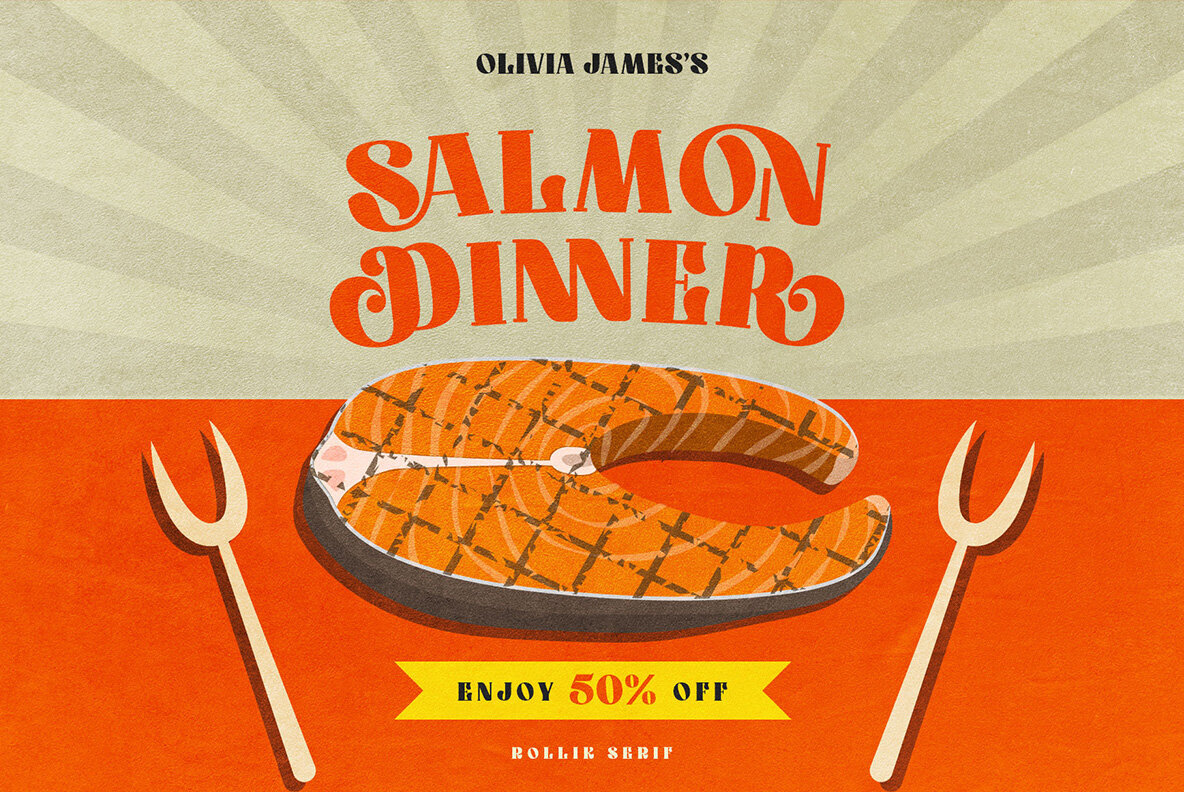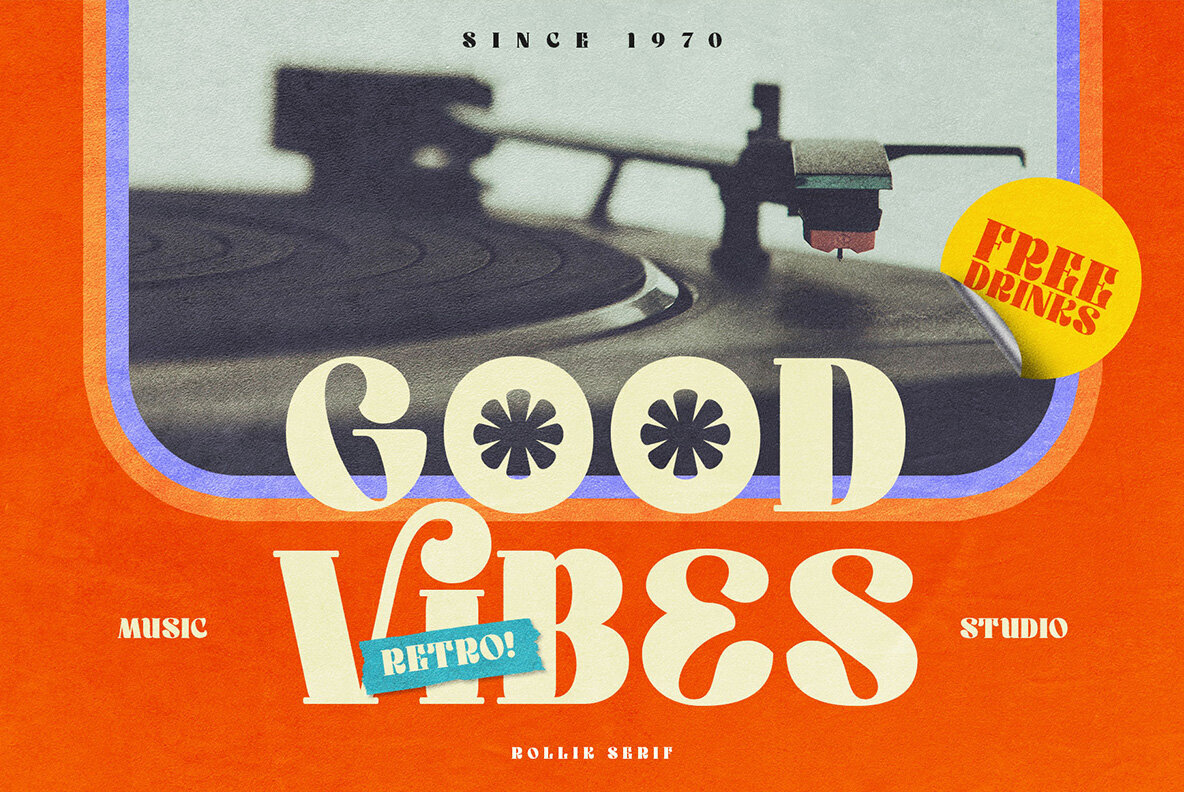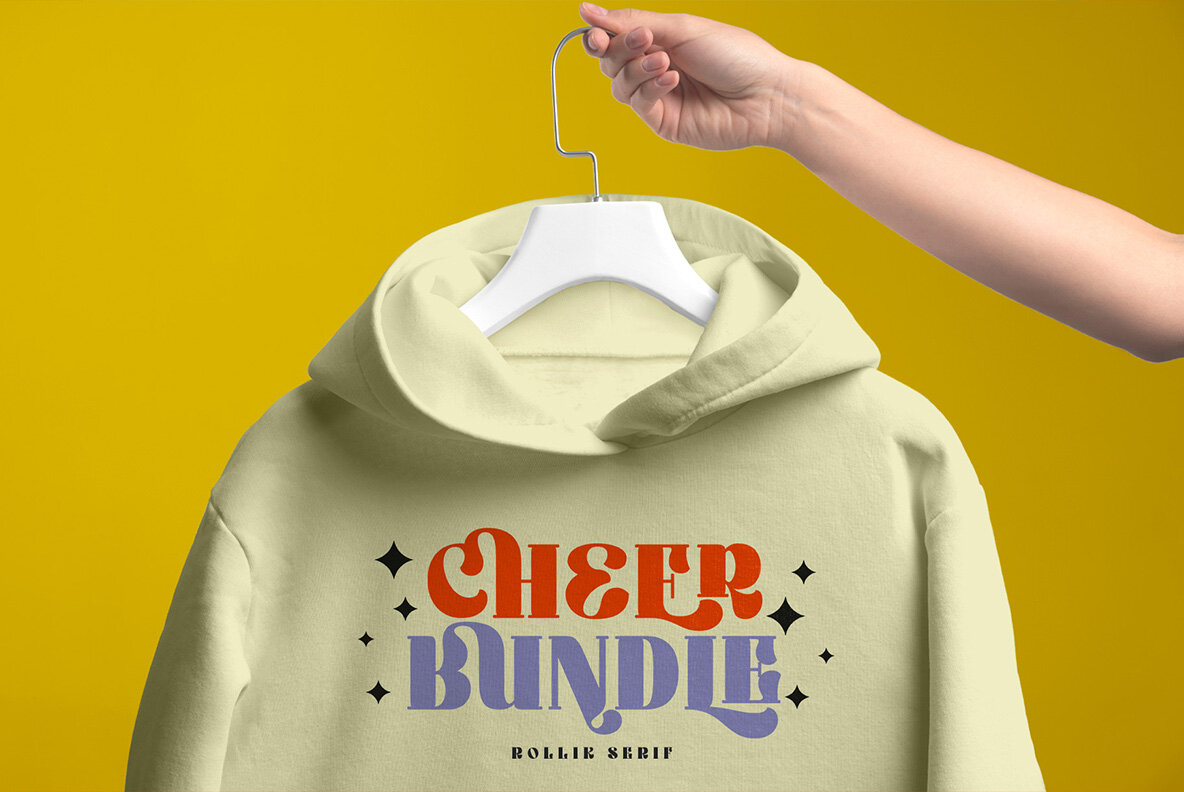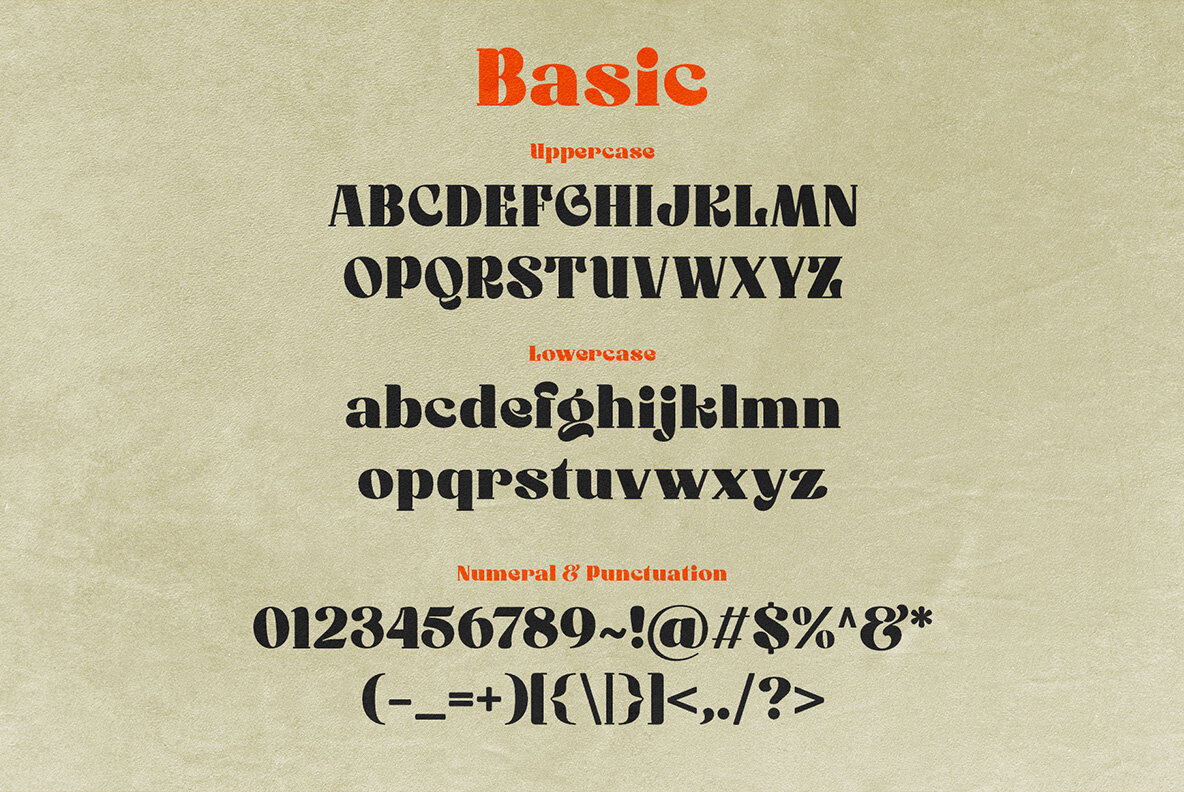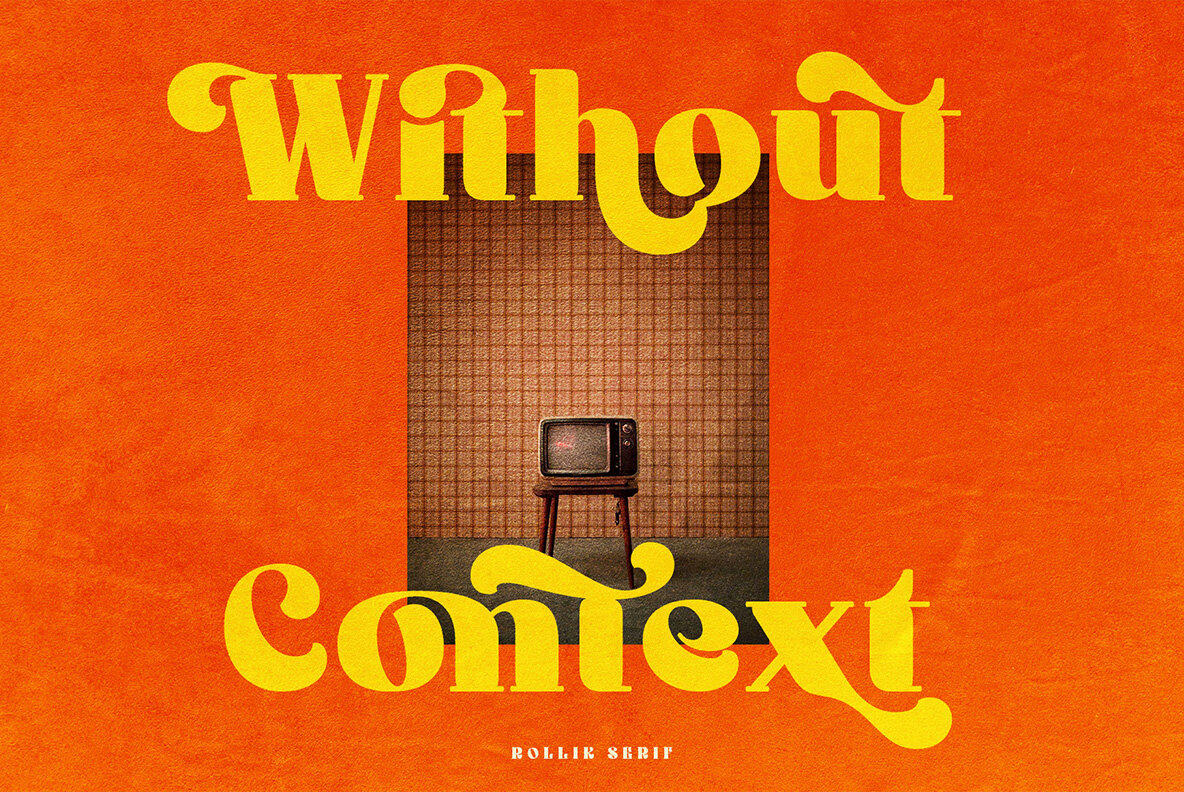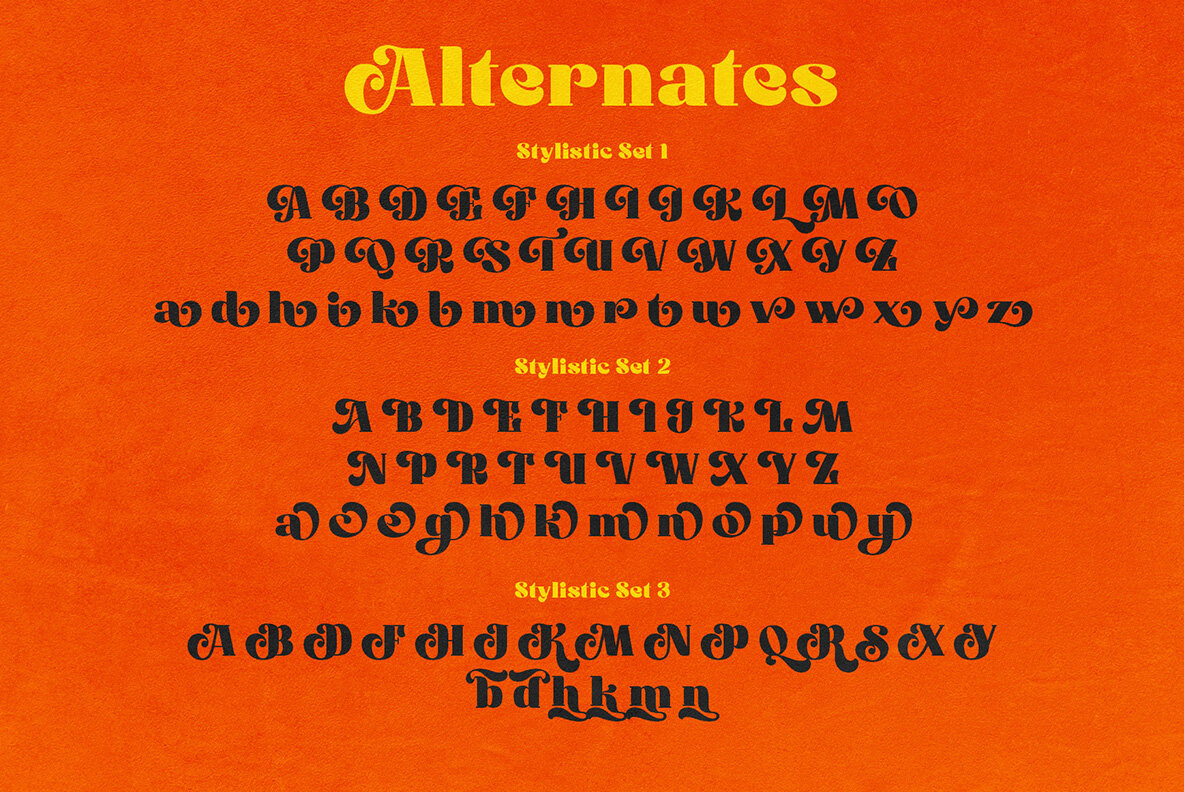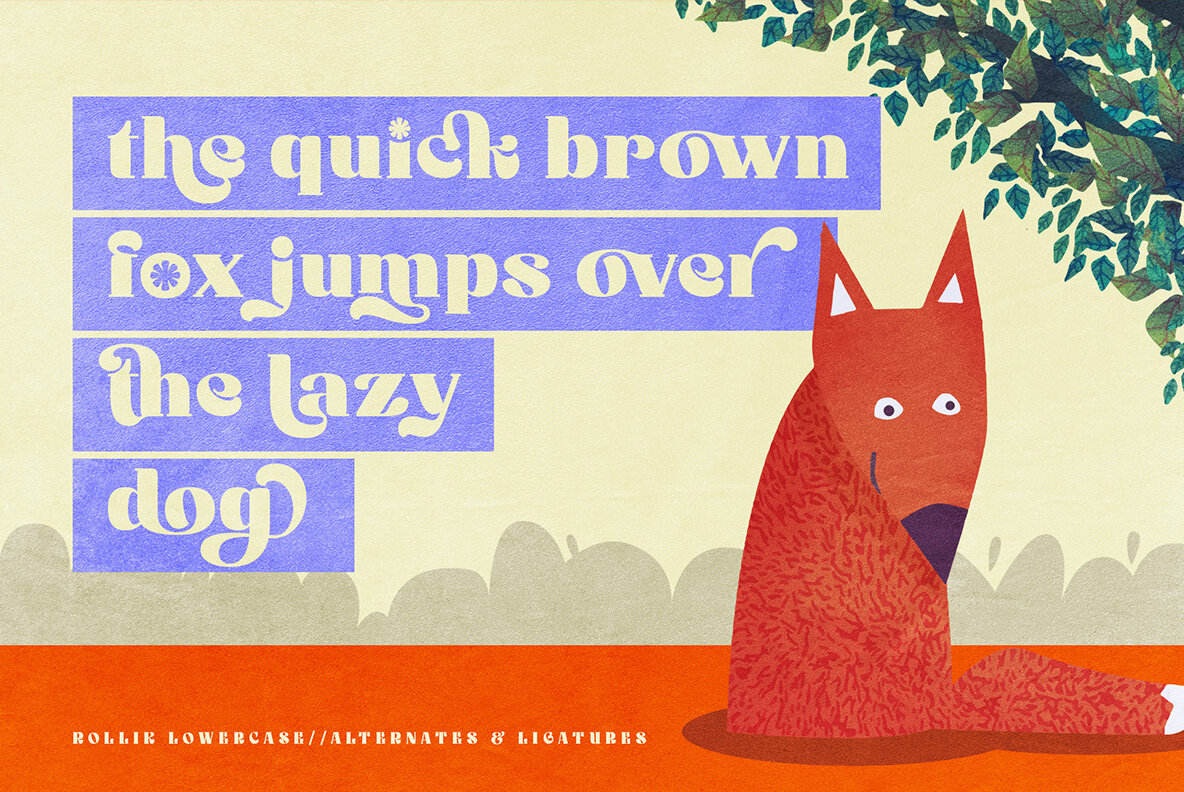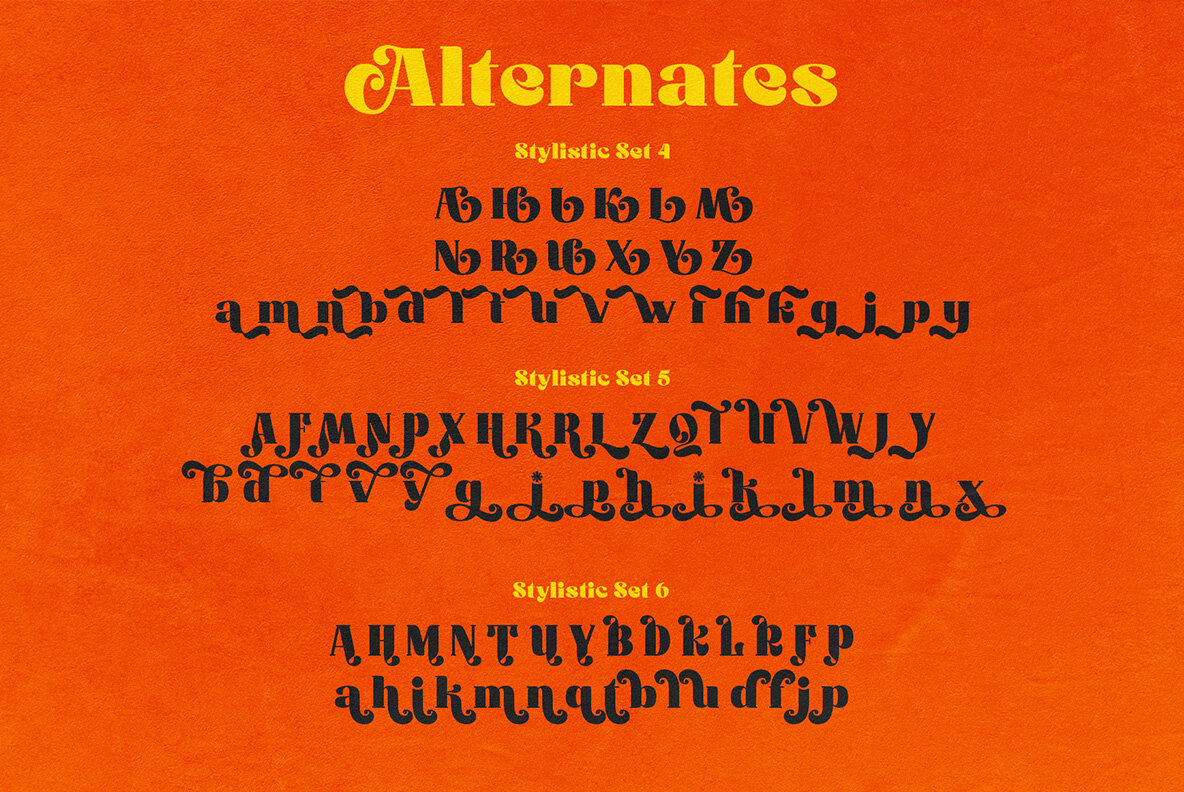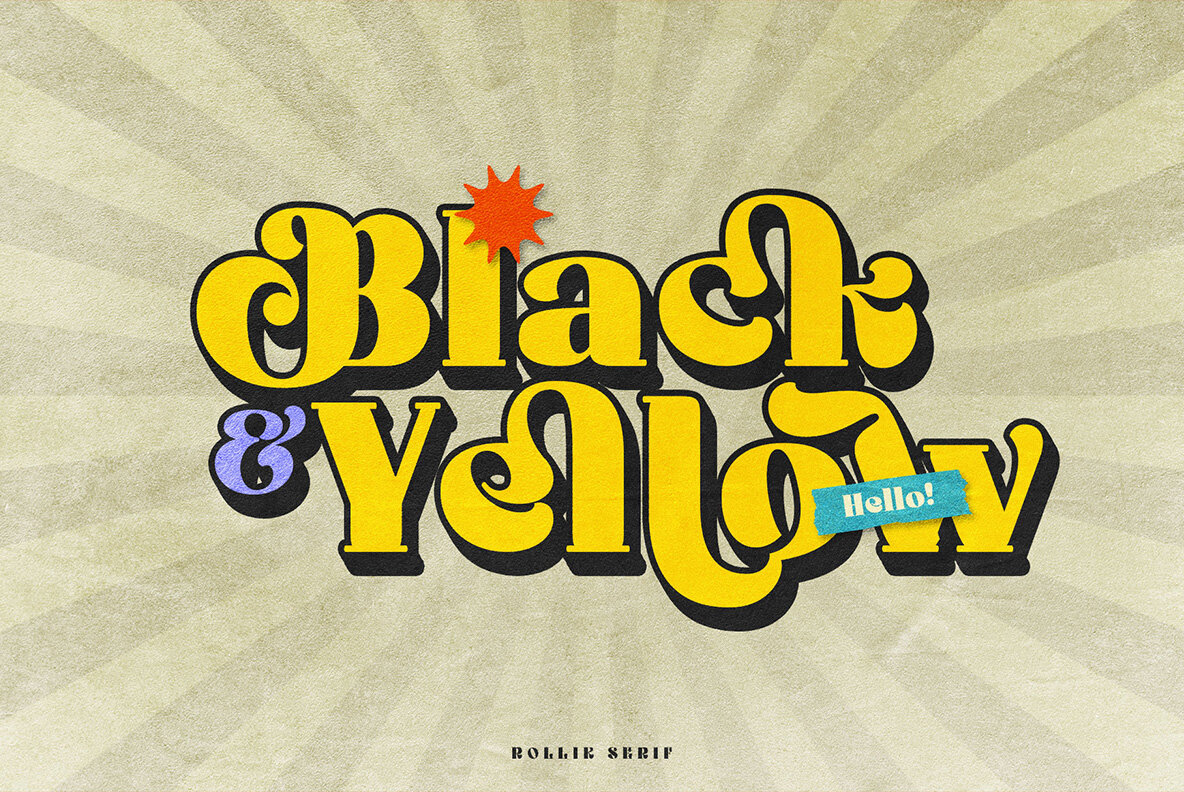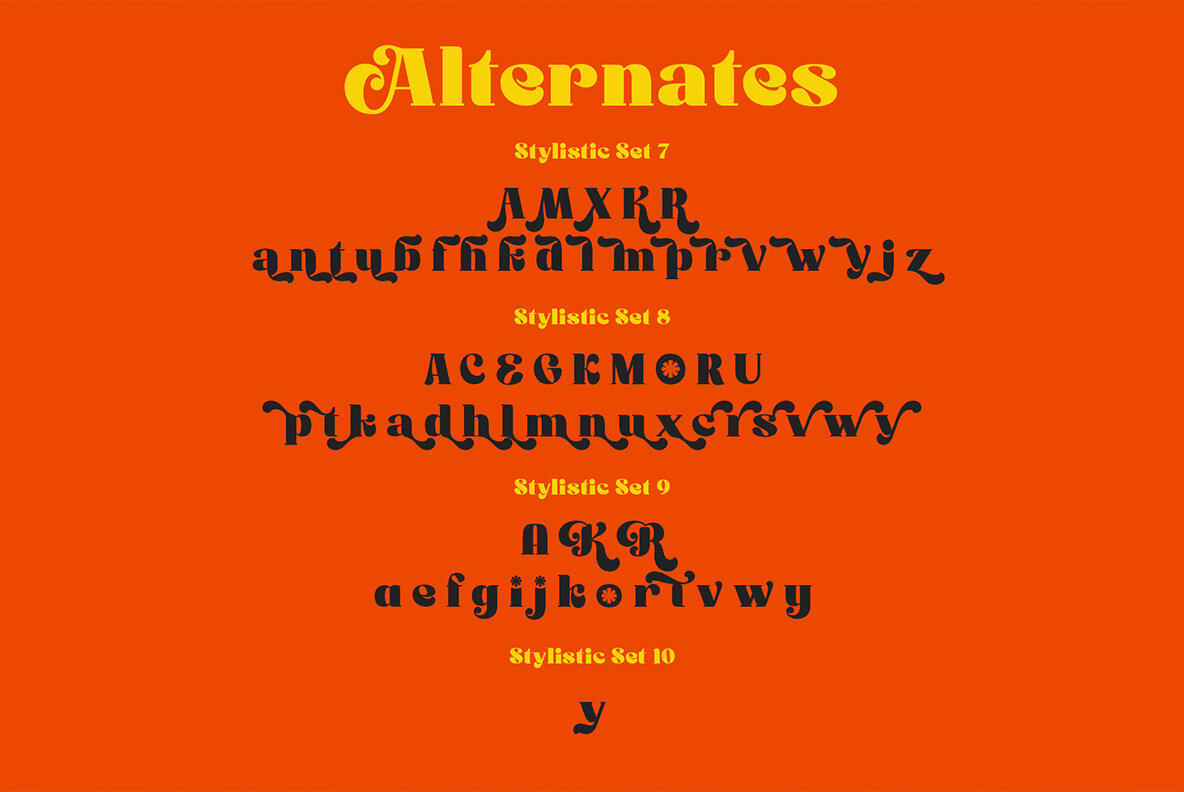
Rollik Font
Rollik Regular
Presenting the Rollik Typeface by alitdesign. Inspired by music posters of the 70s and 80s, the Rollik font was created in a calm and simple style but still gives it a uniquely retro and playful feel. Besides that, combined with a dynamic serif style makes the Rollik font more stylish and retro elegant, especially if the design to be made uses swash on alternative fonts for creativity, for example lettering or logotypes designed to make your design look cool and different.
The Rollik font is very suitable for making designs with retro concepts, simple and playful designs, for example making magazine cover designs, music covers, YouTube thumbs, text headers, logotypes and so on with an elegant retort theme. Besides that this font is very easy to use both in design and non-design programs because everything changes and glyphs are supported by Unicode (PUA).
The Rollik font has a total of 940 glyphs including symbol, multilingual and alternative glyphs.
Language Support : Latin, Basic, Western European, Central European, South European,Vietnamese.